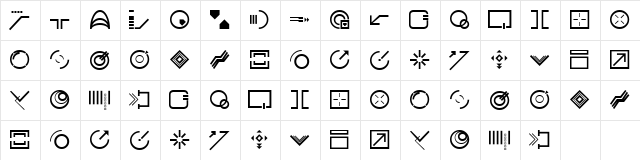
StyleBats CleanCut
Design Context for StyleBats Typeface
StyleBats is a composed and adaptable typeface that performs quietly and consistently across a wide range of design contexts.